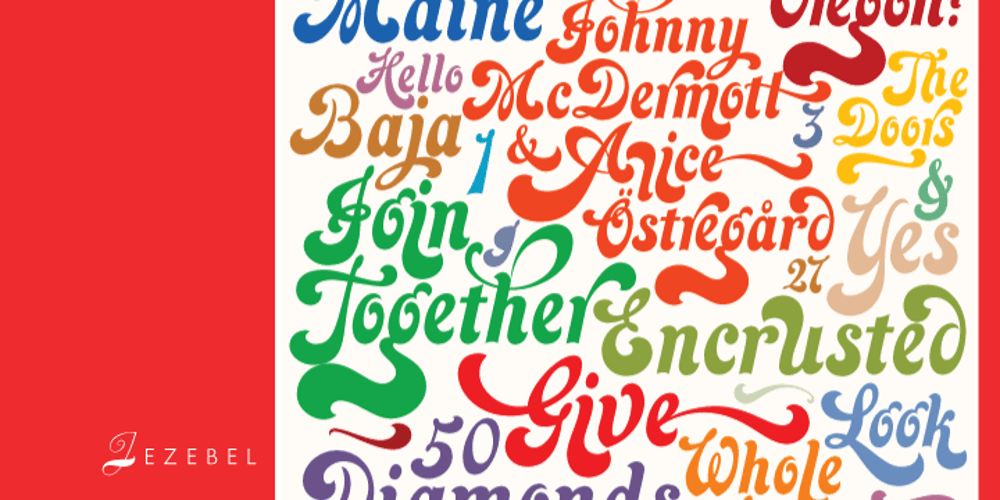
Jezebel
Jezebel font
Jezebel Font Family was designed by Rebecca Alaccari and published by Canada Type. Jezebel contains 10 styles and family package options. Jezebel is all dressed up for you. And if she can’t make your mouth water and eyes light up with love, nobody else can. She’s got bigger hair than Dolly and Elvira together, more tongue than a Kiss concert with Jagger opening, more leg than a Moulin Rouge premiere, more sword than a pirate ship, and more loop than a chartered accountant. She’s the queen of now, the essence of cool, the twenty-first century fox. She’s the ever playful and creative girl with so much talent her art just cannot be restrained. She’s got popular culture on a long but strong leash. She looks gorgeous and positively glamorous no matter what color she wears. And last but not least, she’s got the charisma to make people of all ages want more of whatever it is she feels like offering. The Jezebel design was extrapolated from two early 70s film ideas called Hampshire and Harper’s Bazaar. Both were uncredited, somewhat badly drawn, almost impossible to typeset satisfactorily, and very limited in character set. It was necessary to go back to the drawing book to explore a better balance and easier setting potential. The subsequent character set expansion took Jezebel to a much superior level of functionality, with the addition of multiple alternates and swashes to fit a perfectionist’s eye. Jezebel is available in all popular font formats for all common platforms, and supports a Western, Eastern and Central European Latin languages, as well as Baltic, Celtic/Welsh, Esperanto, Maltese and Turkish. The OpenType version, Jezebel Pro, combines the extra large character set (over 650 characters) with many handy OpenType features, including discretionary ligatures and tons of alternates and swashes distributed over the stylistic, swash, and titling features. Two bonus fonts are included with Jezebel. The first one is Canada Type’s digitization of Harper’s Bazaar’s basic set and alternates. The second one consists of over 35 wordmarks, ranging from Hello and Cheers to multiple language representations of Yes and Thank You.